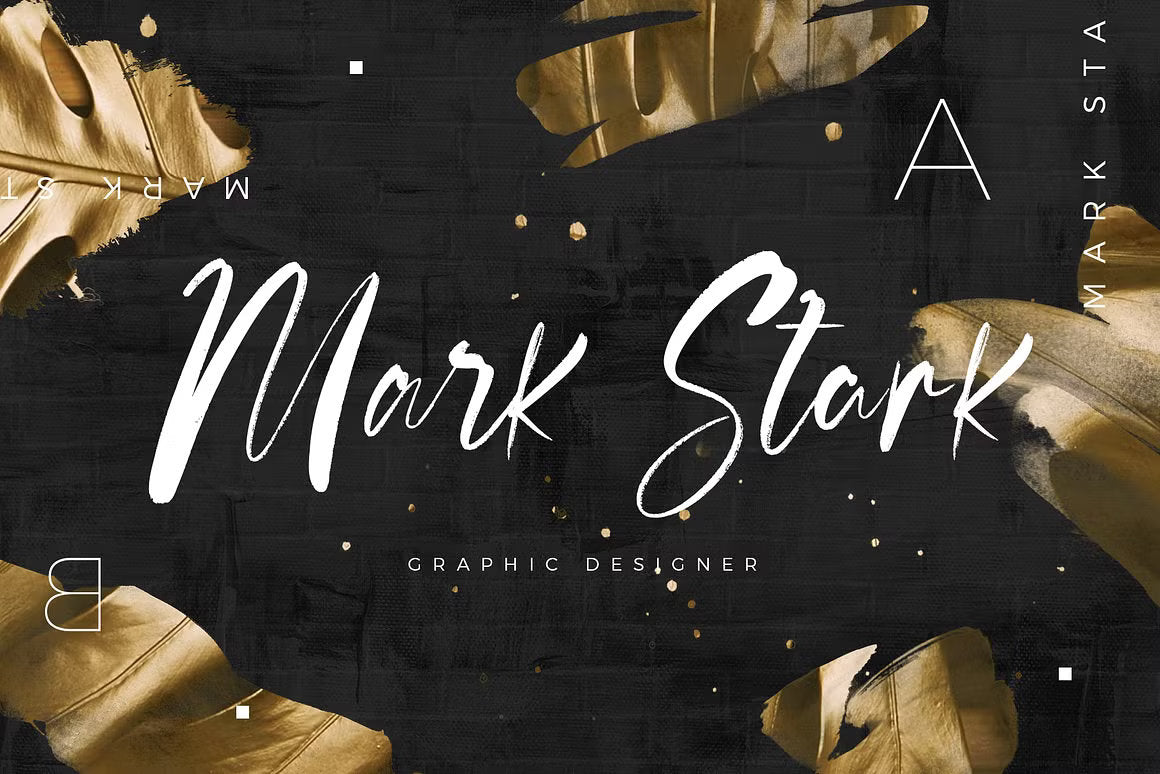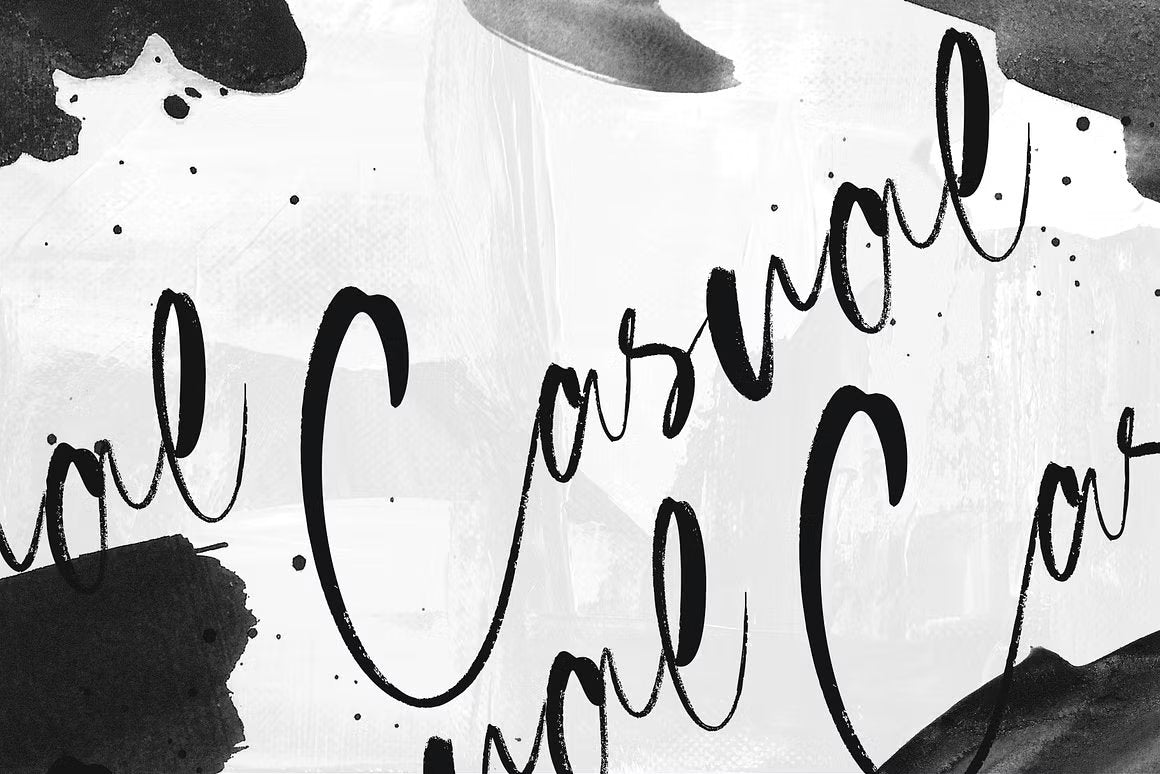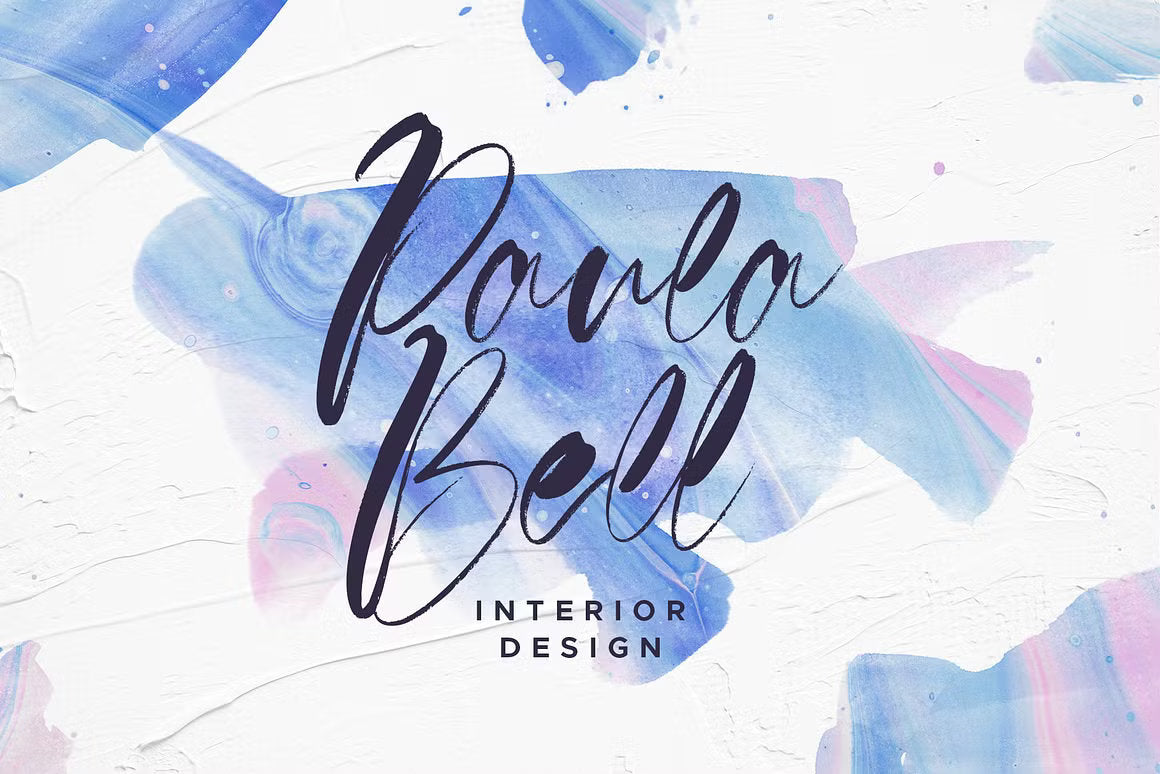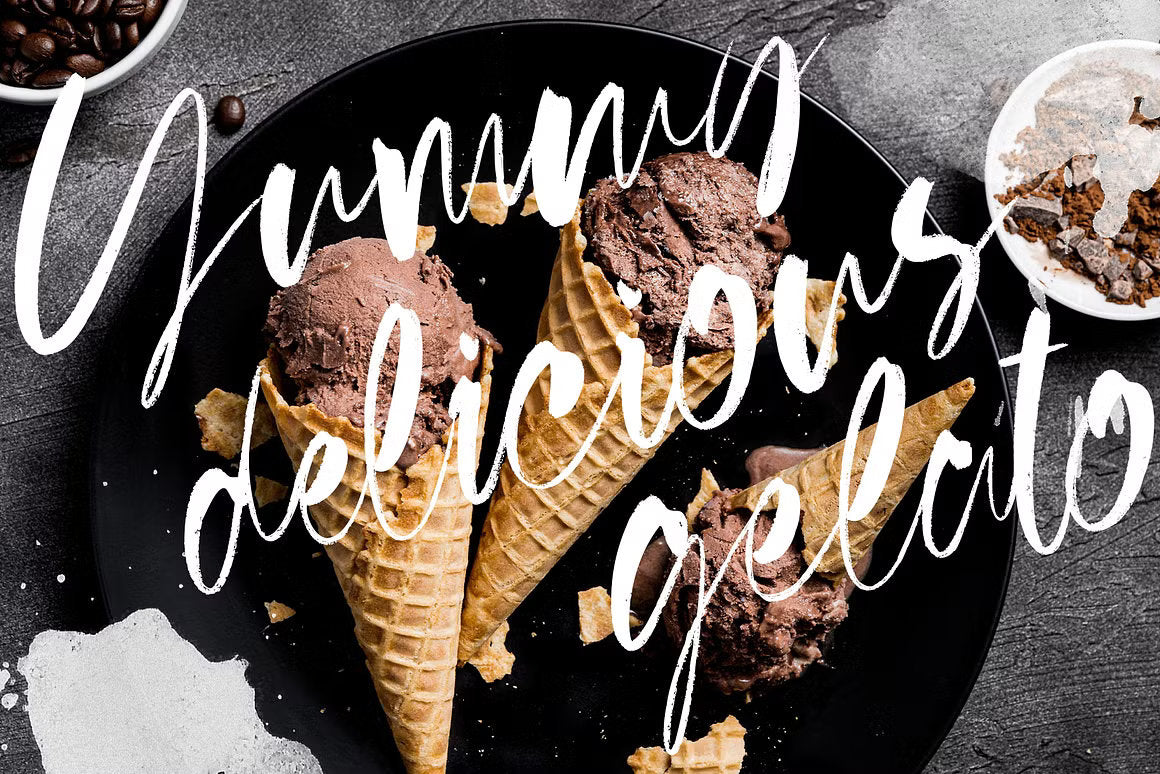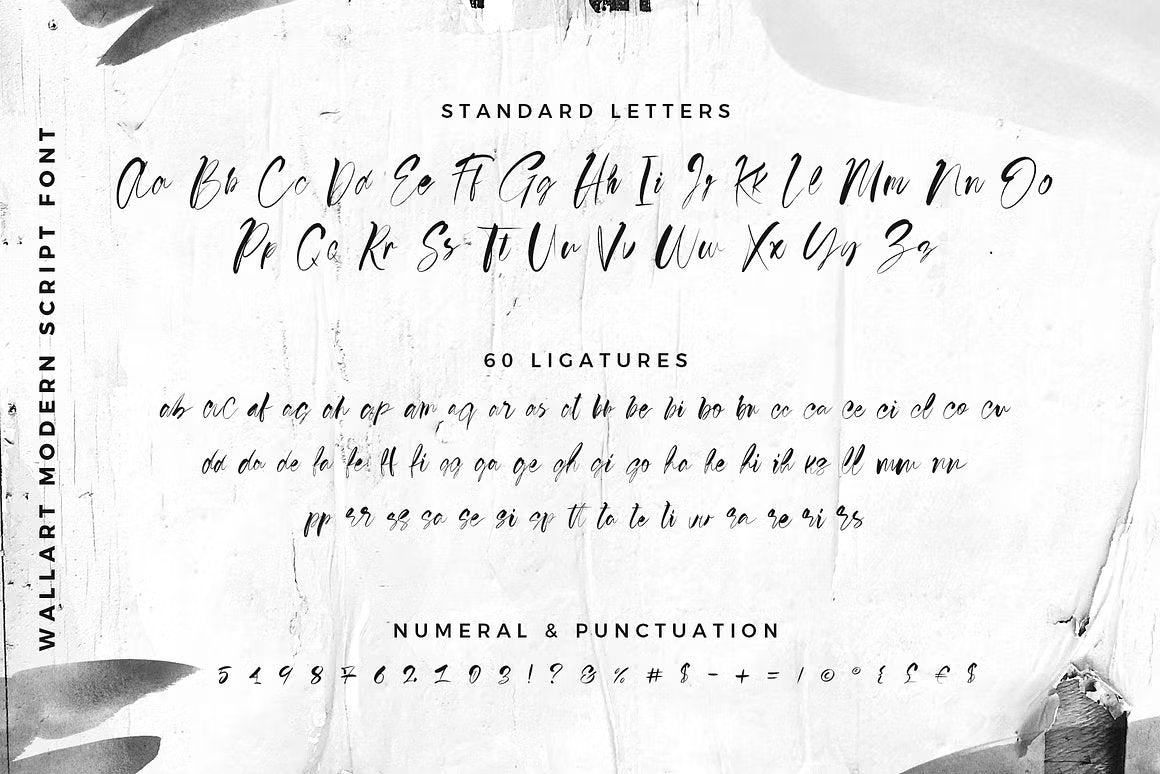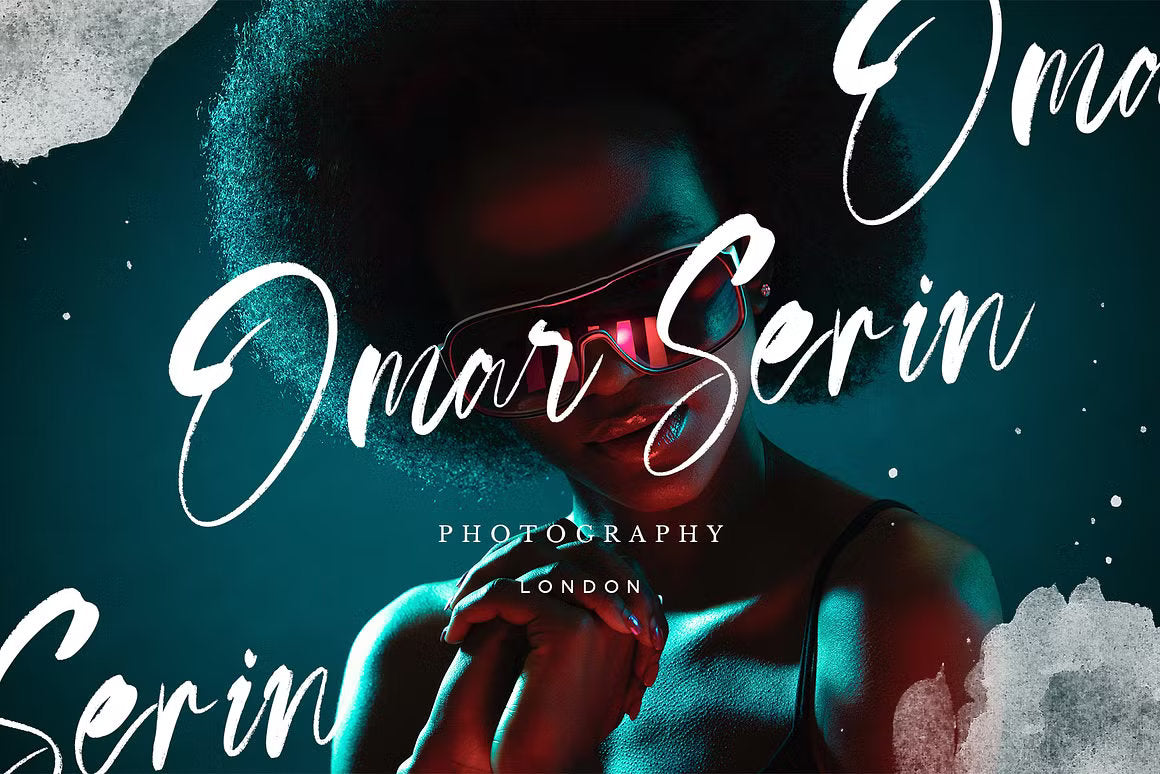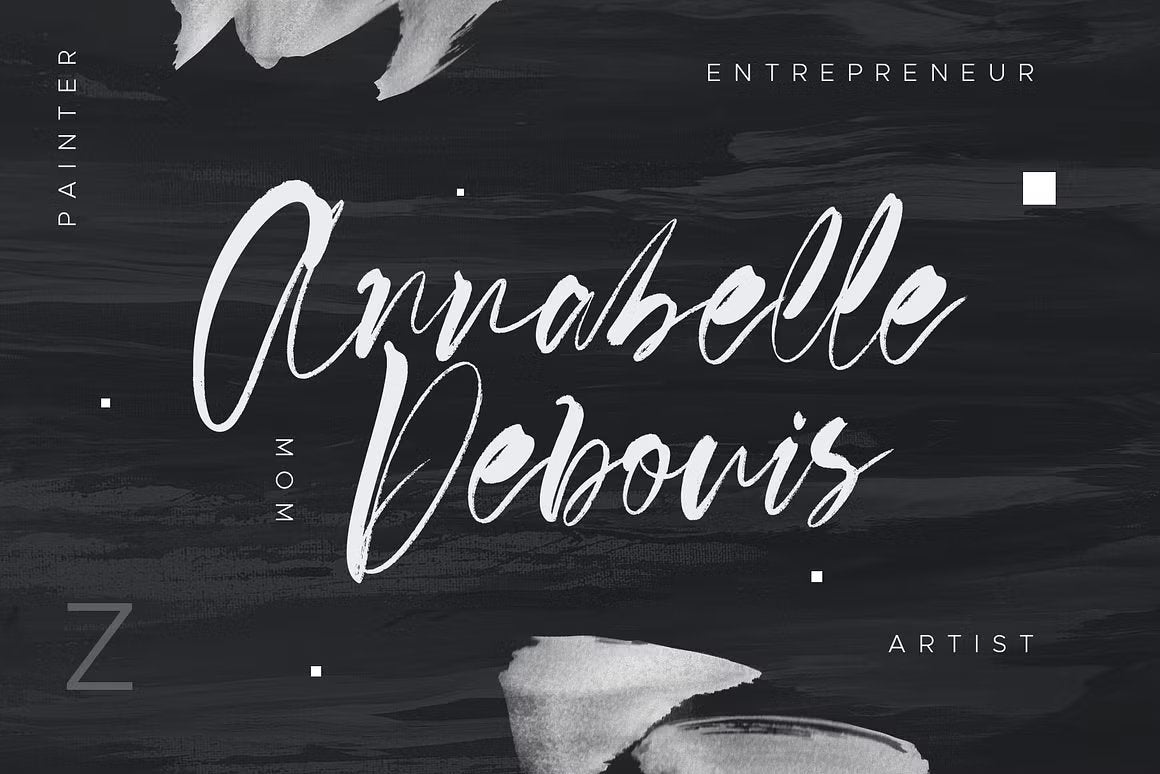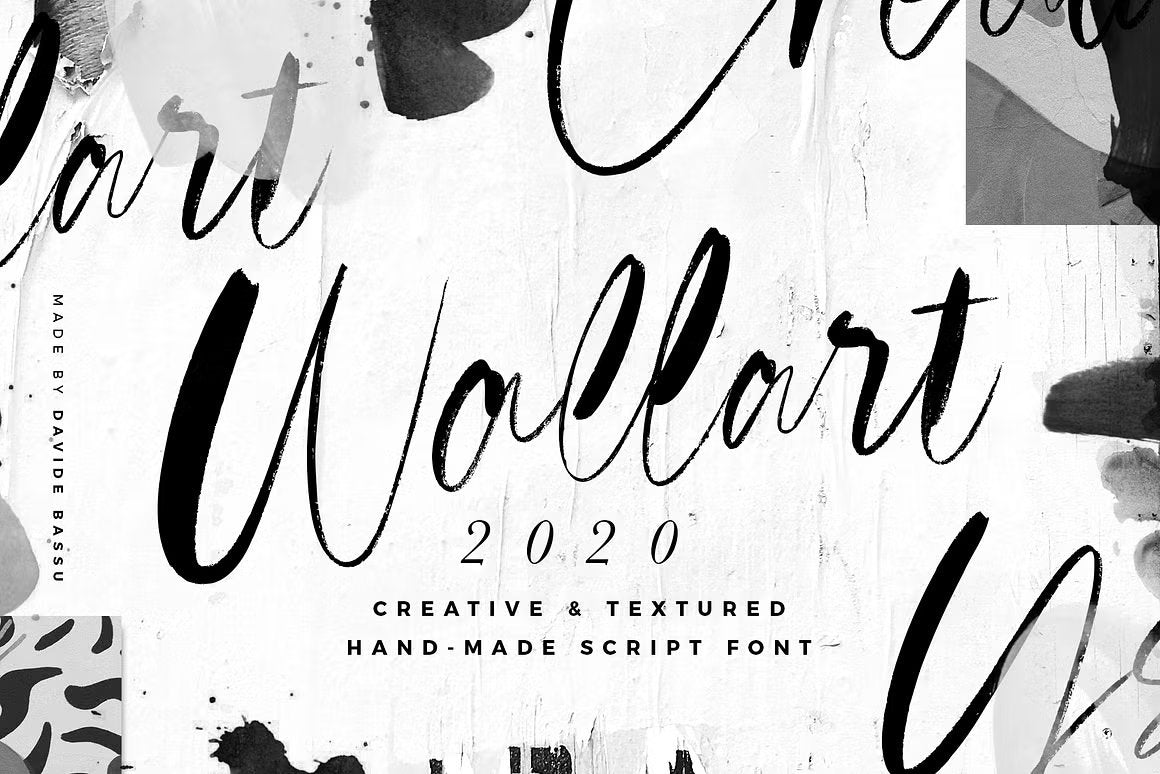
Wallart 2020 – A Graffiti-Inspired Script Font
Wallart 2020 is a bold and expressive handwritten script font inspired by street art, urban textures, and raw graffiti energy. Designed to bring high contrast and personality to your work, this messy yet controlled lettering style is perfect for eye-catching digital graphics, apparel, posters, packaging, or any print material that needs attitude.
The font features hand-crafted uppercase and lowercase letters, numbers, punctuation, and an impressive set of 60 ligatures that add natural variation and rhythm to your text — making each word feel truly custom and alive.